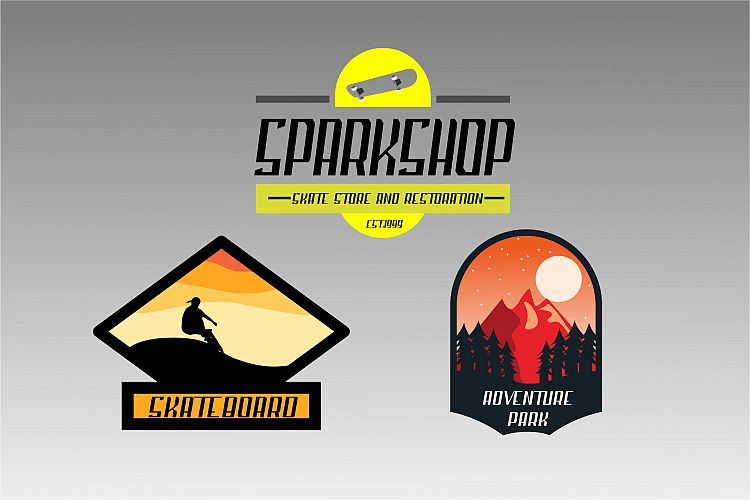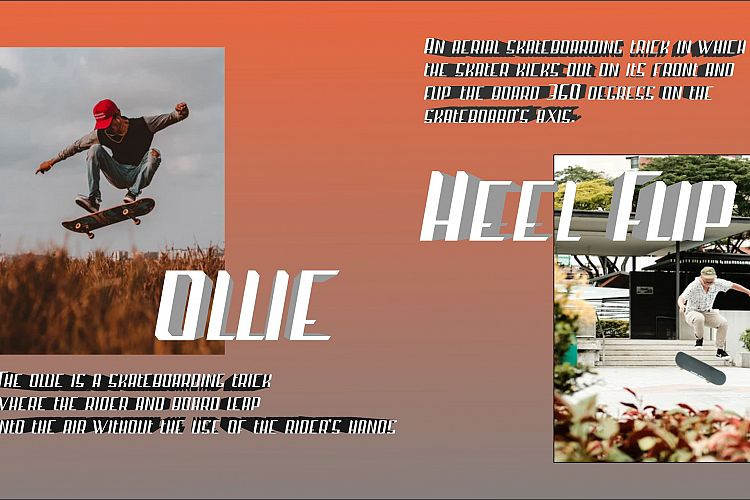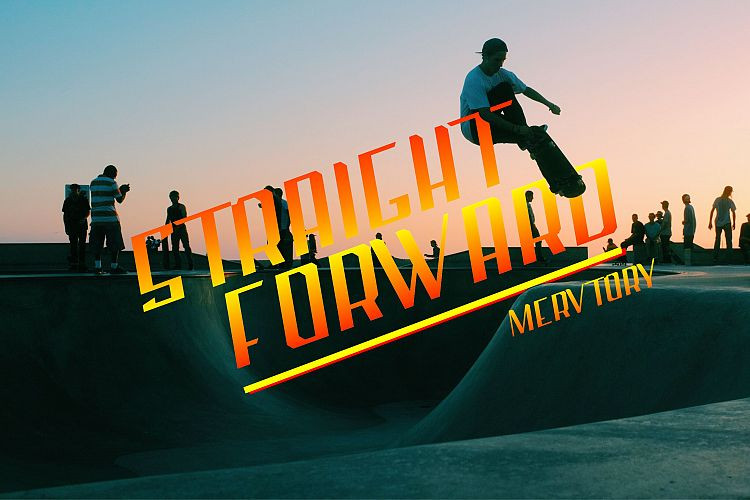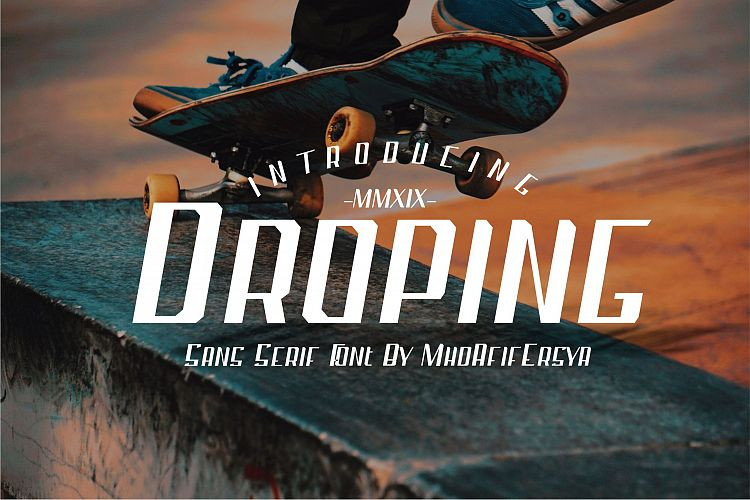
Droping Sans Serif Font
Where is your next destination? Starts your journey! Introducing, Droping Font! Droping Sans Serif Font! A Sport Font . It’s also perfect for that and delicate look that you want in your invitations, poster. Strong and clean. This tyepeface is Modern and very suitable for logos, Tshirt, apparel, quote, handwritten quotes, product packaging, tittle header, poster, merchandise, social media, labels, branding & greeting cards.